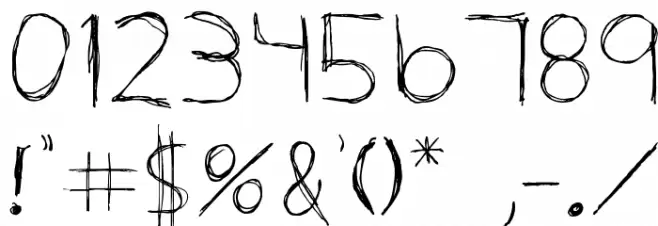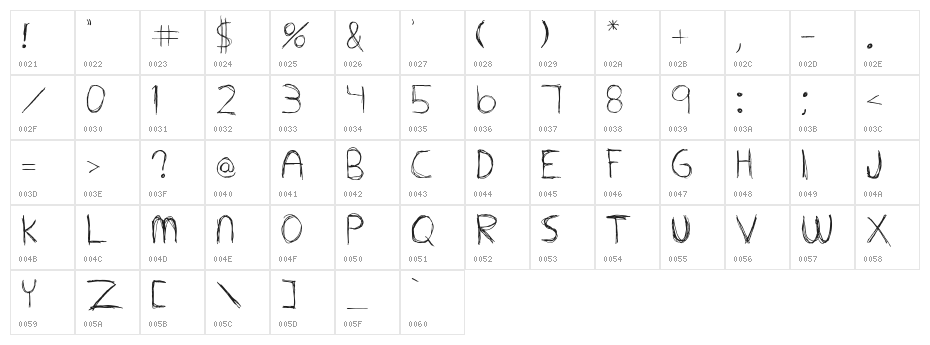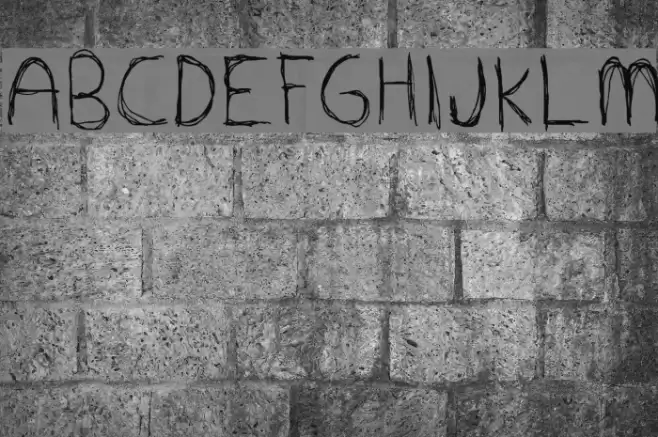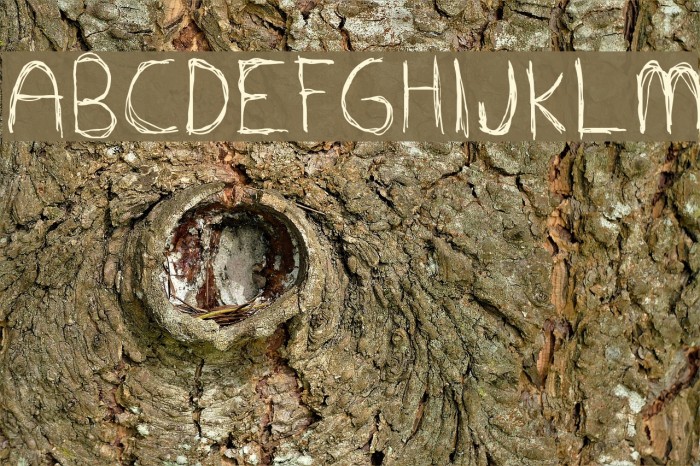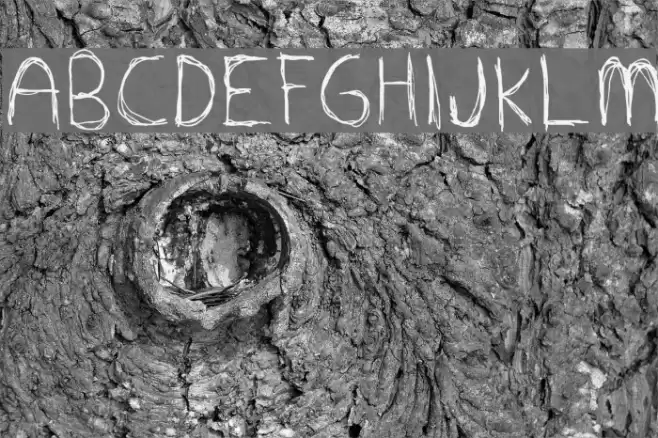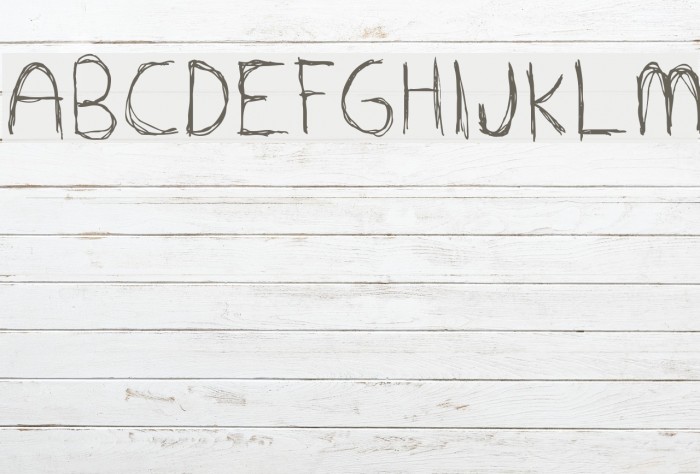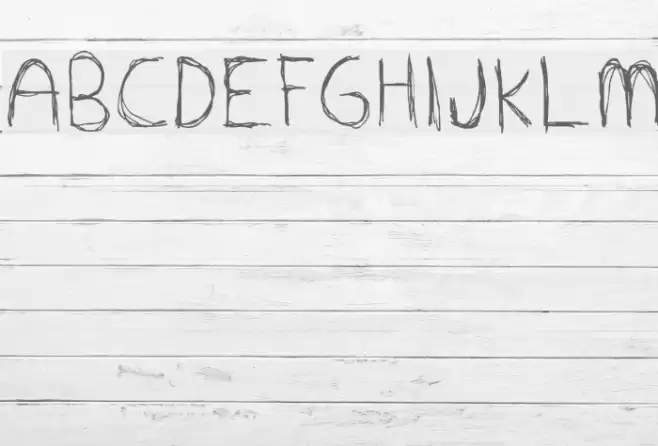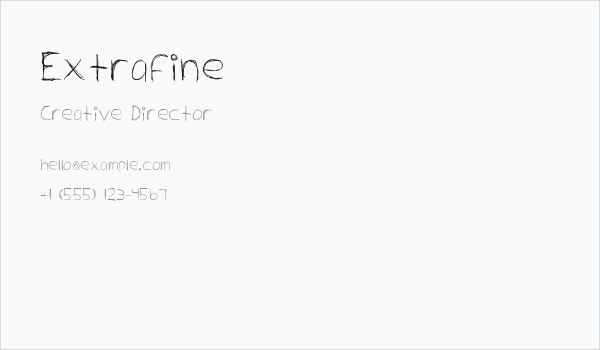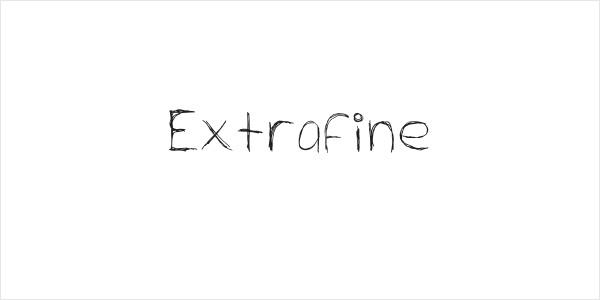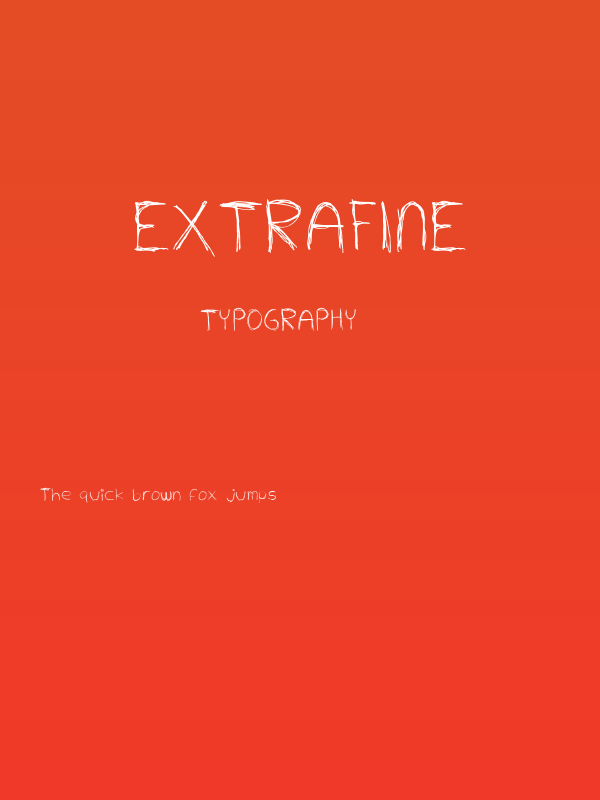
Extrafine Font
Extrafine Description
This font features a unique, hand-drawn style with a sketch-like appearance. The characters are irregular and have a slightly rough texture, giving them a raw and artistic feel. The strokes vary in thickness, adding to the organic and spontaneous look of the font. Each letter has its own distinct personality, with some letters appearing more elongated or compressed than others. This font captures a sense of creativity and individuality, making it stand out in any design project.
| Proposed Projects | Ideal for creative projects such as art posters, album covers, or branding for artistic ventures. It can also be used in digital illustrations or as a decorative element in graphic design. |